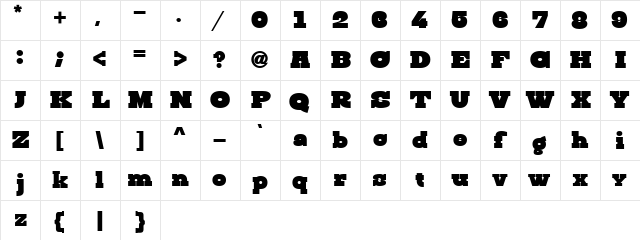
Steampunk Regular
| Foundry | Kustomtype |
| Designer | Kustomtype |
Design Context for Steampunk Typeface
Steampunk offers clean, dependable letterforms without strong stylistic allegiance, making it a practical choice for designers who need flexibility.
Pro Tip: Use Steampunk in both headline and body roles to test its range before committing to a single application.